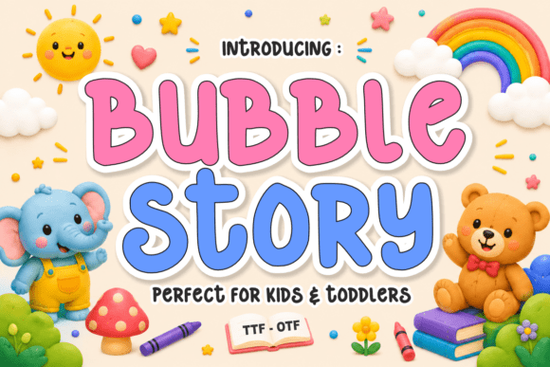
Choosing the right typography for children's projects can be tricky. You need something that feels friendly and approachable without sacrificing readability. The Bubble Story Font is designed specifically to fill this gap. It brings a sense of wonder and sweetness to creative designs, making it ideal for anything targeting toddlers or young kids. With soft, rounded contours and a hand-drawn aesthetic, it turns standard headlines into warm invitations to play.
Many creators struggle to find display fonts that look good on screen and work well with cutting machines. This typeface addresses both needs. It is optimized with clean, smooth vectors, which makes it a dream for quick cutting and effortless weeding in crafting software. Whether you are using Cricut or Silhouette, the file quality ensures you spend less time fixing nodes and more time creating.
What makes this font suitable for children's projects?
The visual language of childhood is distinct. It relies on soft shapes, bright colors, and a lack of sharp edges. This font captures that essence perfectly. Its plump, bubbly letters mimic the look of toys or building blocks. This psychological connection helps parents and children feel immediately comfortable with the design.
When you are designing for kids, legibility is also key. While some decorative fonts are hard to read, this one maintains clear character shapes. It works well for educational classroom materials where children are just learning to recognize letters. You can use it for alphabet posters, name tags, or reward charts without confusing young readers.
How does it perform with cutting machines?
For crafters, the technical side of a font is just as important as the look. Complex scripts often have tiny gaps that tear during weeding. This display font avoids those issues. The vectors are closed and smooth, reducing the risk of material ripping when you peel away the excess vinyl.
This reliability saves time and materials. If you run a small business selling custom decals or party decorations, consistency is vital. You want every cut to look the same. The clean lines ensure that intricate details, like the curves on a "B" or "S", remain intact even on smaller sizes.
Where can you use this typeface effectively?
The versatility of this font extends beyond just digital screens. It is an exceptional choice for creators looking to craft memorable children's products. Here are a few specific applications where it shines:
- Birthday Party Packages: Use it for invitations, cupcake toppers, and welcome signs.
- Apparel Design: Perfect for t-shirts and onesies intended for toddlers.
- Educational Materials: Great for worksheets, flashcards, and classroom decor.
- Book Covers: Adds a playful touch to children's eBooks or printed stories.
Are there similar styles to consider?